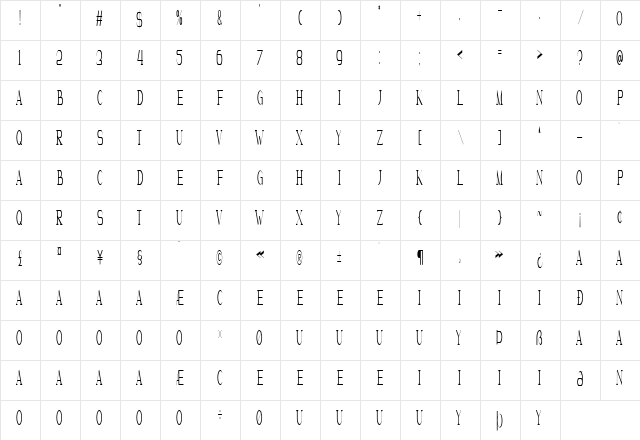
Marvelous Photograph Serif Regular
Design Context for Marvelous Photograph Serif Typeface
Marvelous Photograph Serif carries the refined structure of traditional serif typography, with bracketed terminals and considered proportions that communicate credibility and craft.
Pro Tip: Set Marvelous Photograph Serif with slightly loose tracking in headlines to let each letterform's detail read clearly at display sizes.